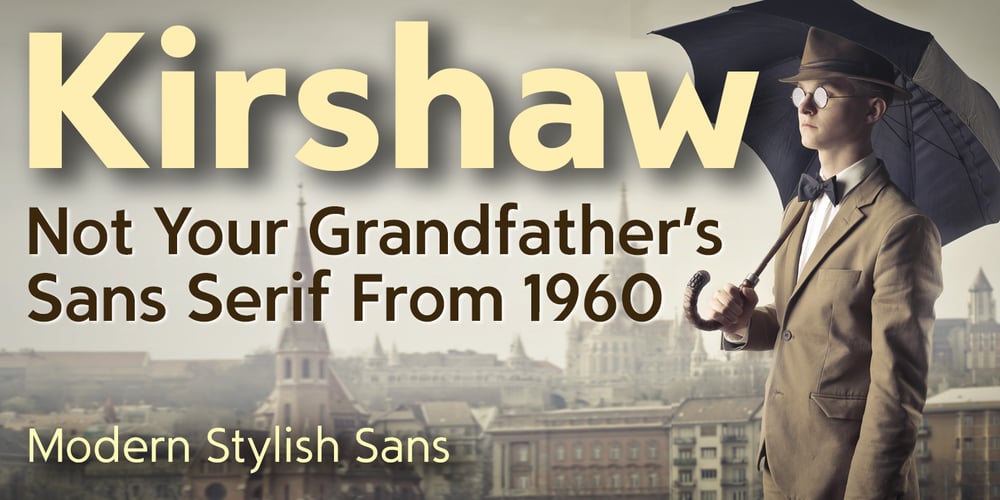
Kirshaw Font Family was designed by Kirk Lyford and published by Kirk Font Studio. Kirshaw contains 14 styles and family package options. Kirshaw is not your grandfather’s sans serif from the 1950s and 1960s. All those old classics like Helvetica, Futura, Franklin Gothic, and Univers are showing their age like an old Elvis Presley song. Kirshaw is a clean, rounded design with sharp contrasting edges. Like those classics, Kirshaw is easy to read in small body copy and captions, plus it’s delightfully modern and stylish for headlines and logos. I designed Kirshaw and Kirkly while undergoing cancer treatment at Stanford Medical Center. Font design was always in the back of my mind and now I had extra time. Kirshaw is a distinctive, modern, easy-to-read sans serif family consists of 14 weights (including italics). It’s an Adobe Latin 3 Character Set containing 350 glyphs per style (including special characters).